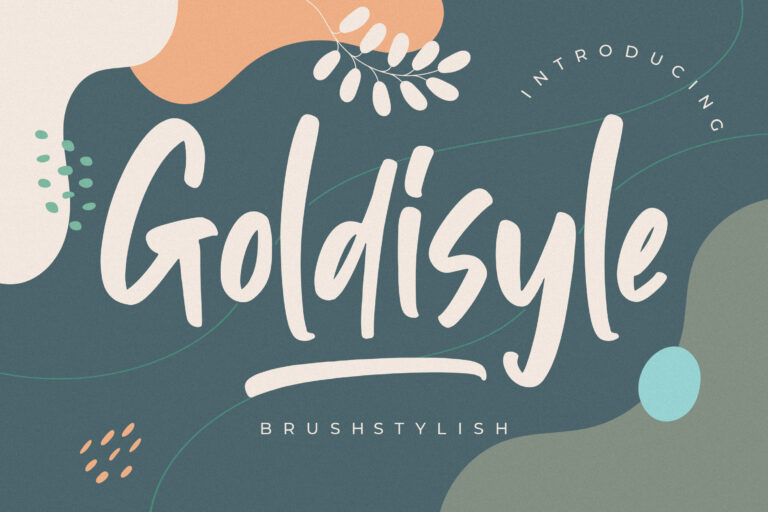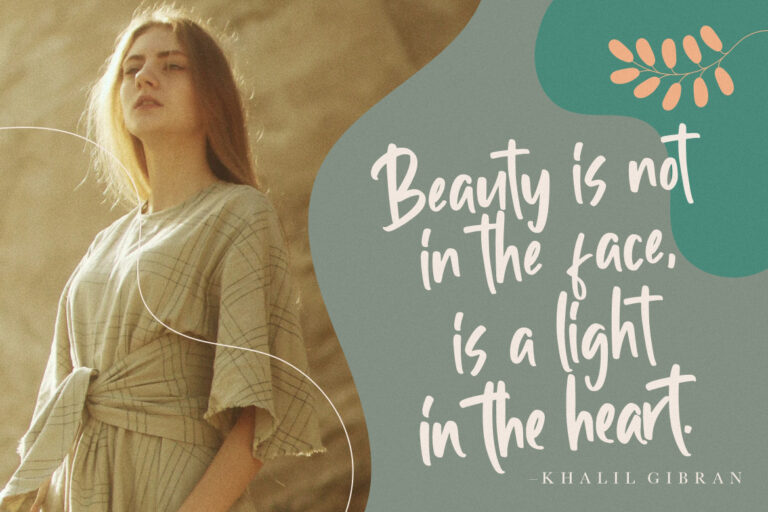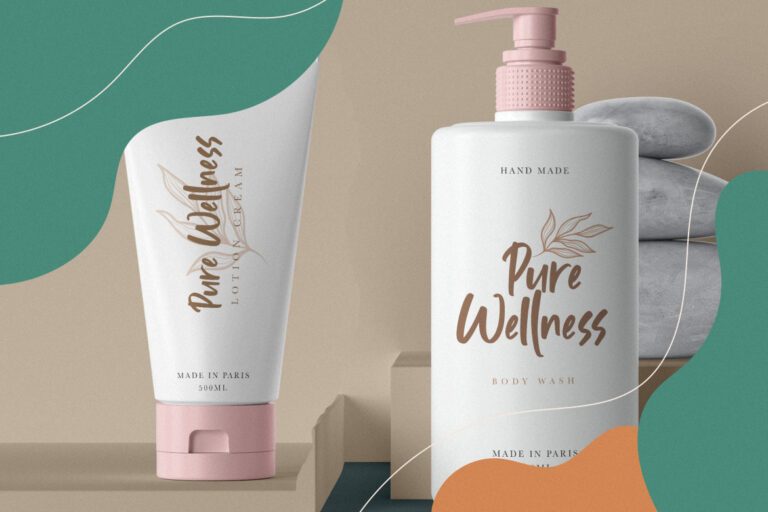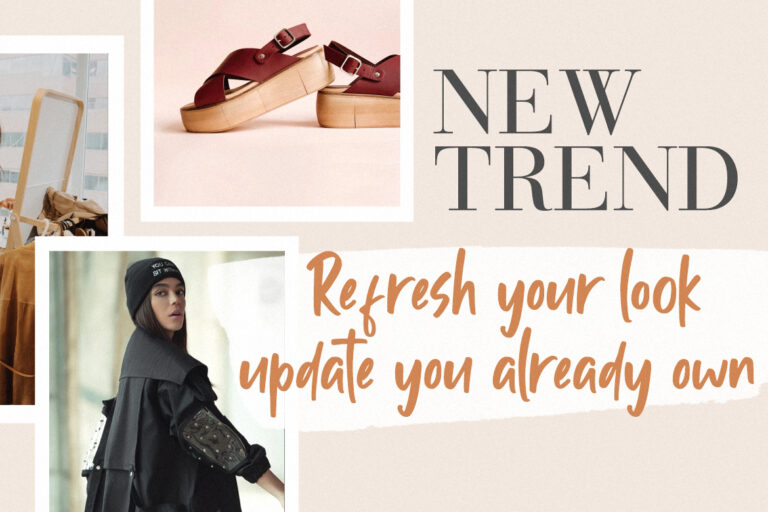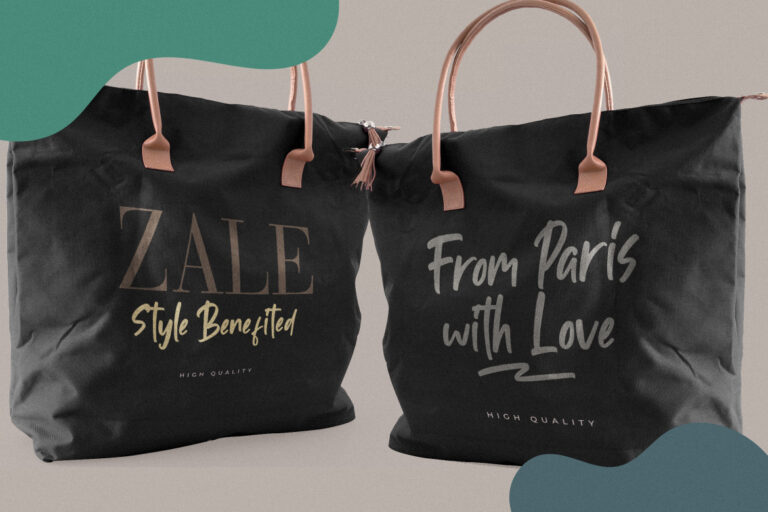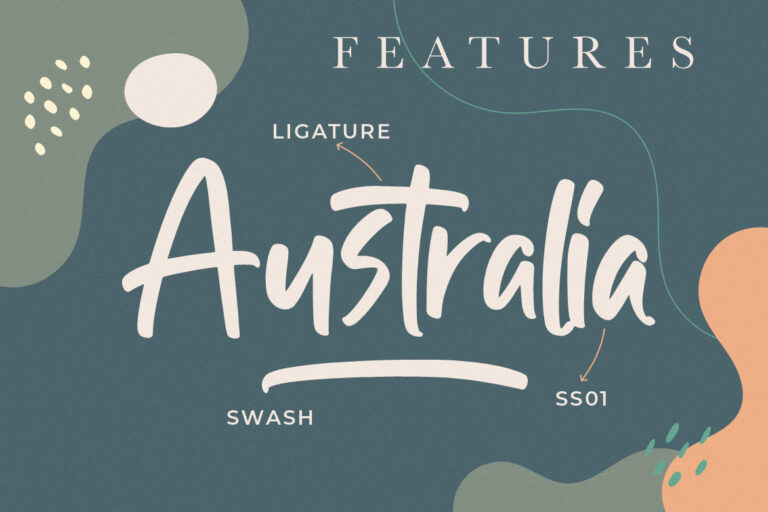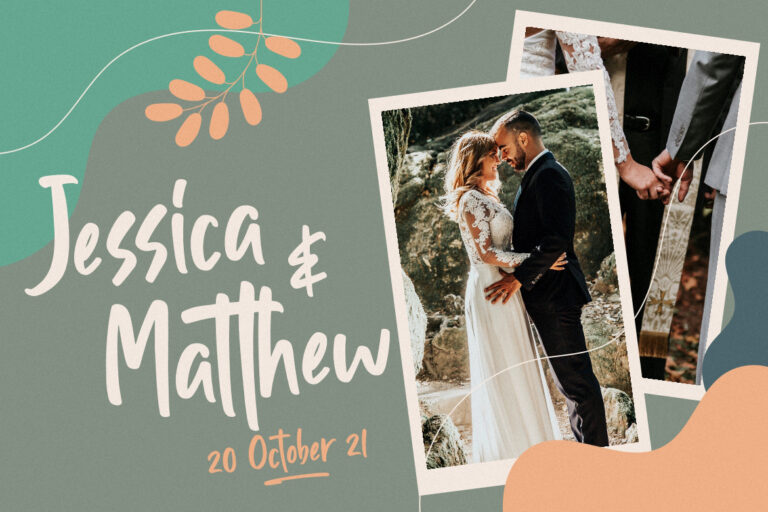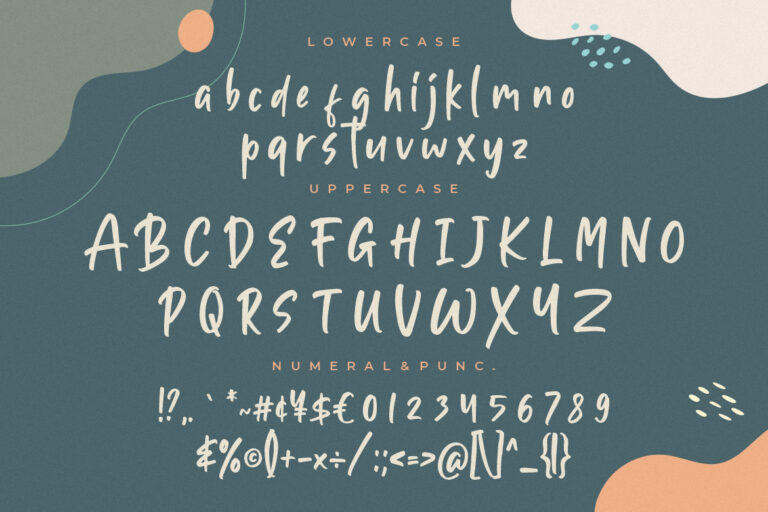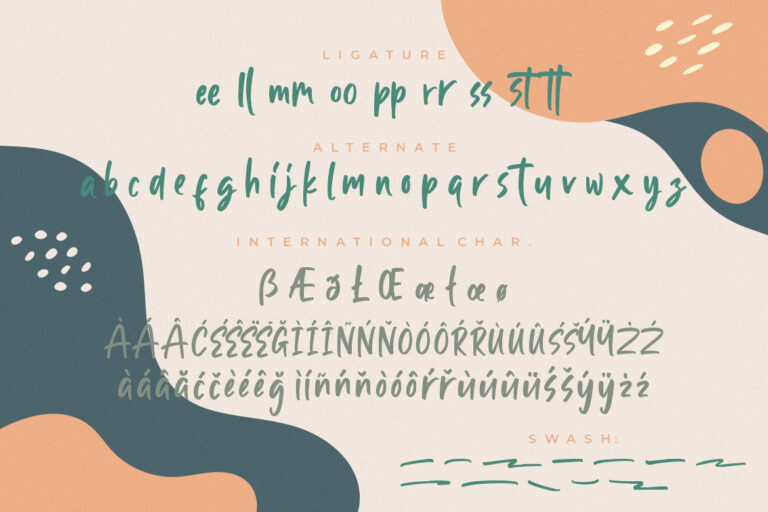
Goldisyle Brush Stylish
Goldisyle is brush stylish font with natural movement looks casual, stylish and elegant.
Goldisyle would perfect for photography, watermark, social media posts, advertisements, logos & branding, invitation, product designs, label, stationery, wedding designs, product packaging, special events or anything that need handwriting taste.